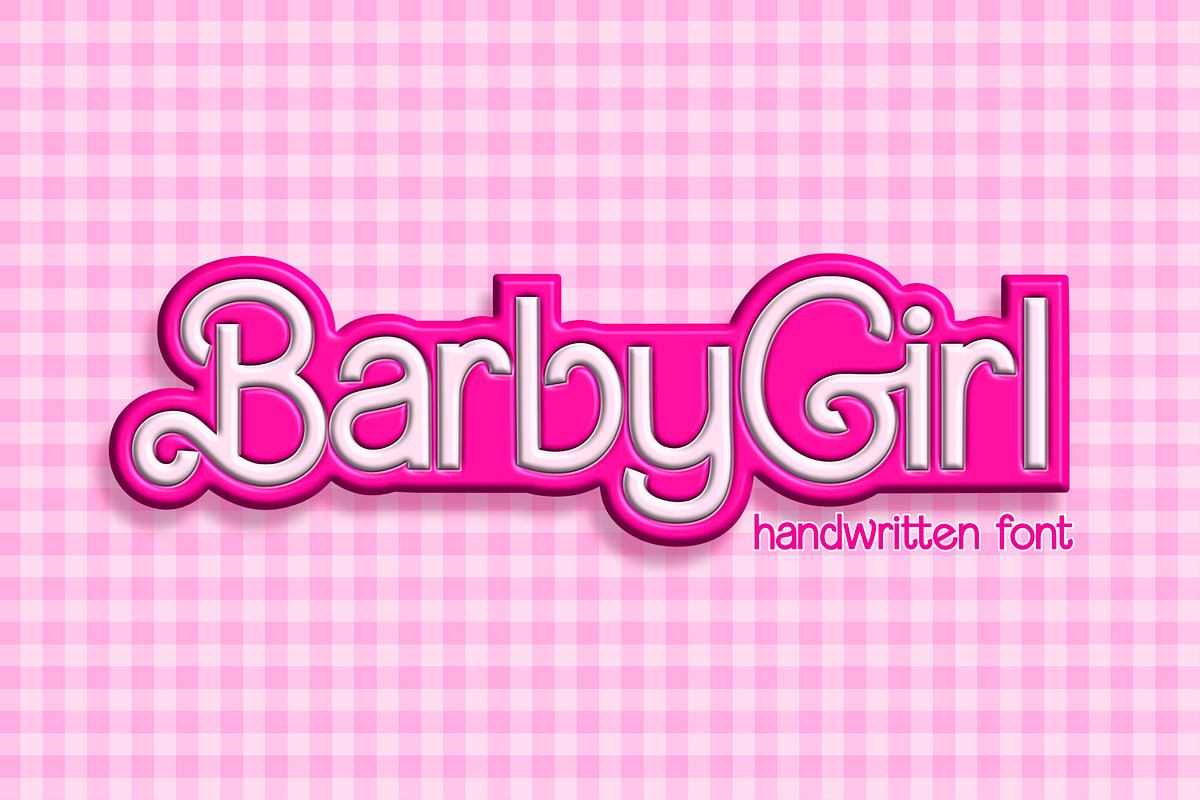
BarbyGirl Cute Handwritten Font Free Download
BarbyGirl Cute Handwritten Font Free Download is a fun and playful typeface that brings a personal, whimsical touch to any creative project. With its bubbly strokes and natural handwriting style, this font is ideal for kids’ products, social media posts, greeting cards, and lifestyle branding. It captures a sense of youthfulness and charm that makes your text feel approachable and full of personality.
Perfect for DIY projects, planners, or anything that needs a friendly and informal vibe, BarbyGirl delivers readability with a stylish twist. Its handwritten aesthetic gives your design a casual, yet polished look, making it a favorite for both digital and print media.